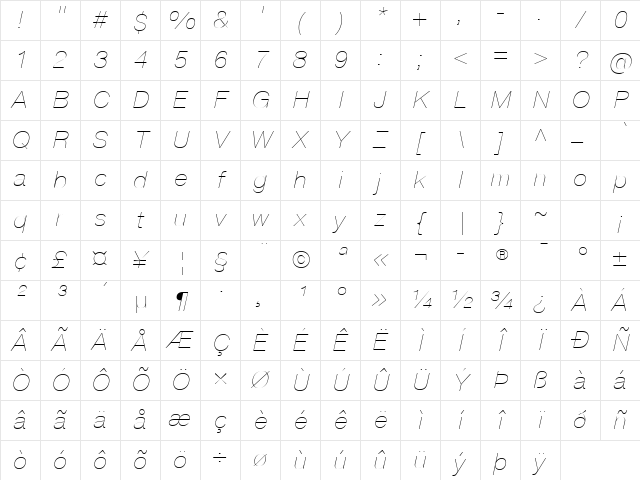
ExtraLight Italic
Foundry: Monotype Imaging Inc.
Designer: Max Miedinger, Charles Nix, Monotype Studio, Jan Hendrik Weber
Design Context for ExtraLight
ExtraLight is a composed and adaptable typeface that performs quietly and consistently across a wide range of design contexts. The slanted form adds forward momentum and visual energy. Its slender proportions lend an understated elegance to any composition.